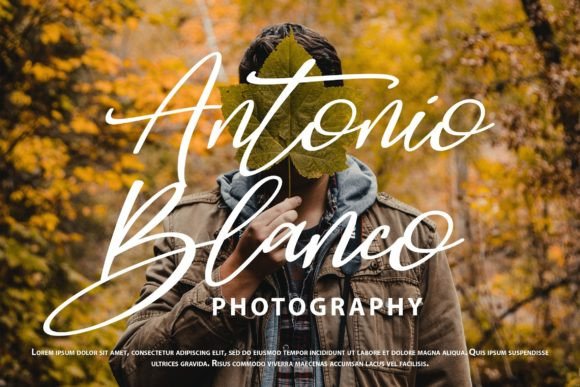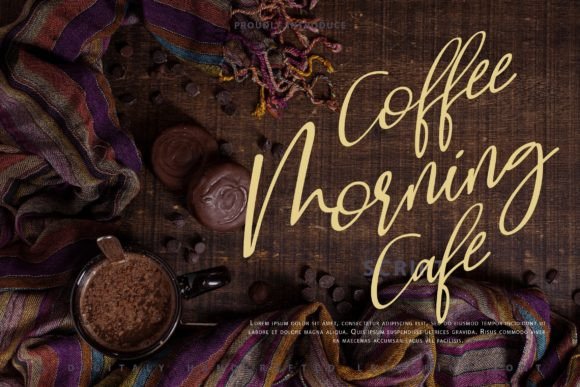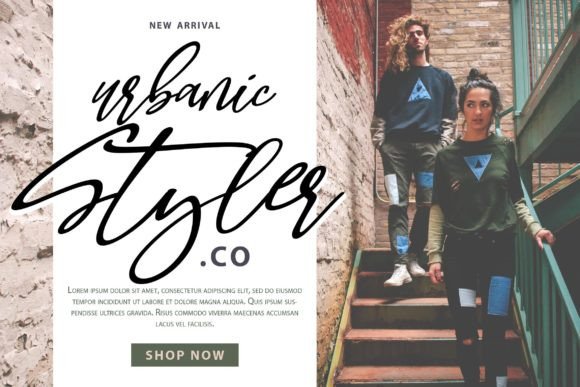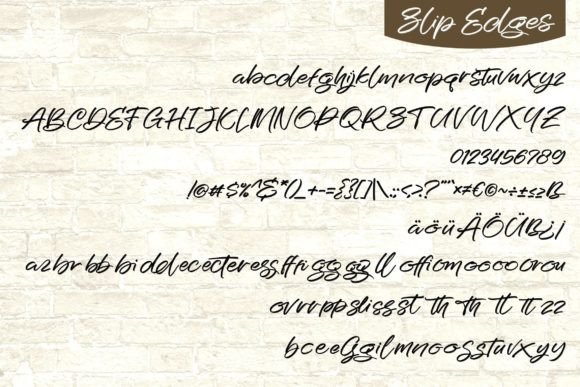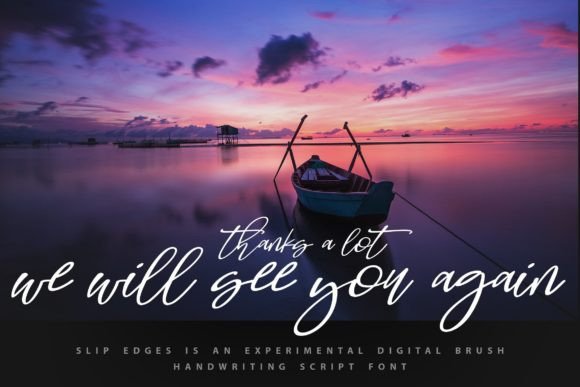
Introduction to Slip Edges Font Font
Fonts play a crucial role in design, and the Slip Edges Font font is a typeface that brings both character and versatility to any project. Whether you’re working on a branding project, a website, or a print design, the Slip Edges Font font offers a unique style that can elevate your work.
Slip Edges is a handcrafted script font with a calligraphy style.
It looks so beautiful on invitations, greeting cards, branding materials, business cards, quotes, posters, and more This font is PUA encoded, which means you can access all of the glyphs and swashes with ease.
Key Features of Slip Edges Font Font
Why Choose Slip Edges Font Font?
The Slip Edges Font font is more than just a typeface – it’s a design tool that helps you communicate your message with style and clarity. Its unique character set and versatile design make it suitable for a wide range of applications, from elegant invitations to bold headlines.
With its carefully crafted letterforms and balanced proportions, the Slip Edges Font font ensures readability and visual appeal across all mediums.
What makes Slip Edges Font font special?
The Slip Edges Font font stands out with its unique design, exceptional readability, and versatility across various design applications.